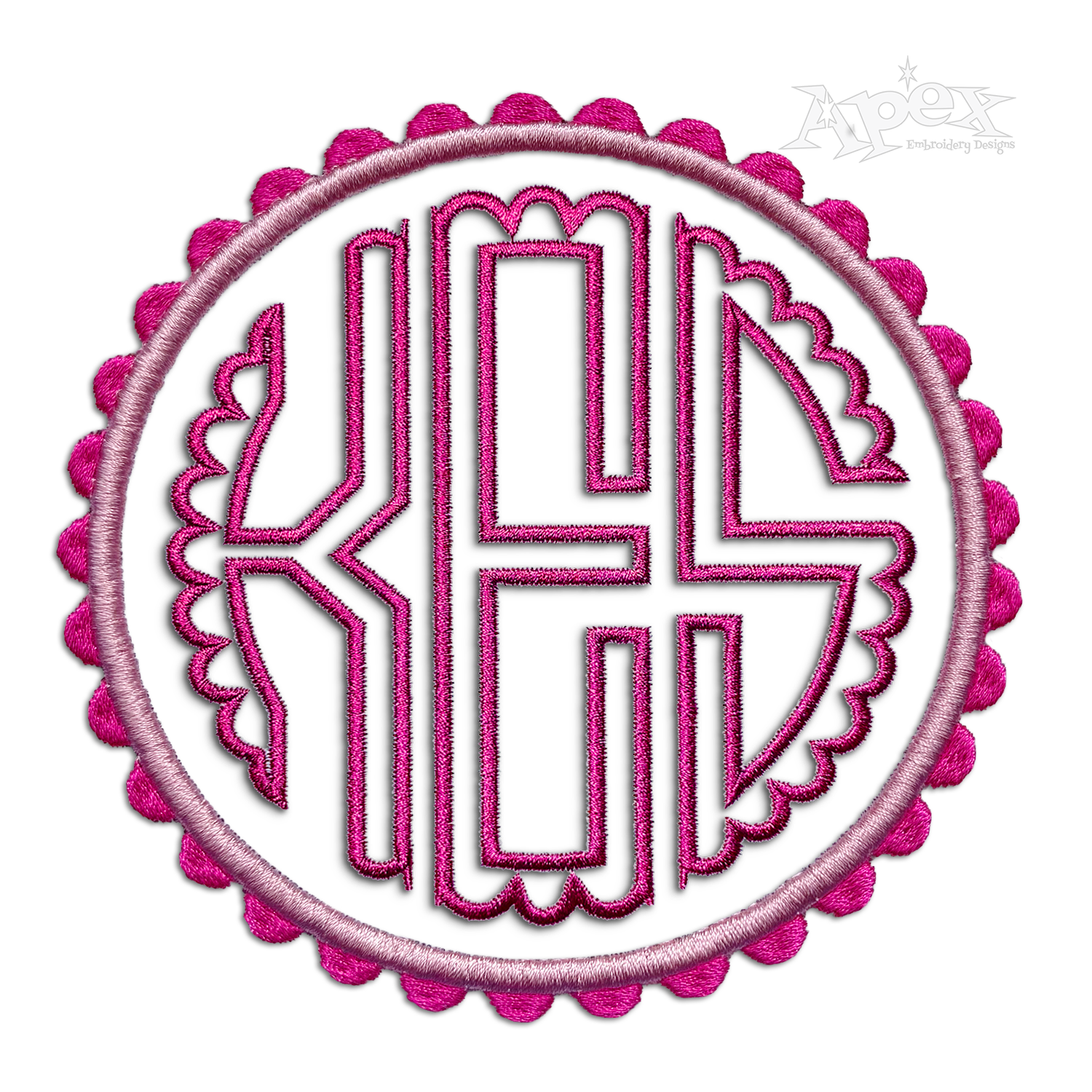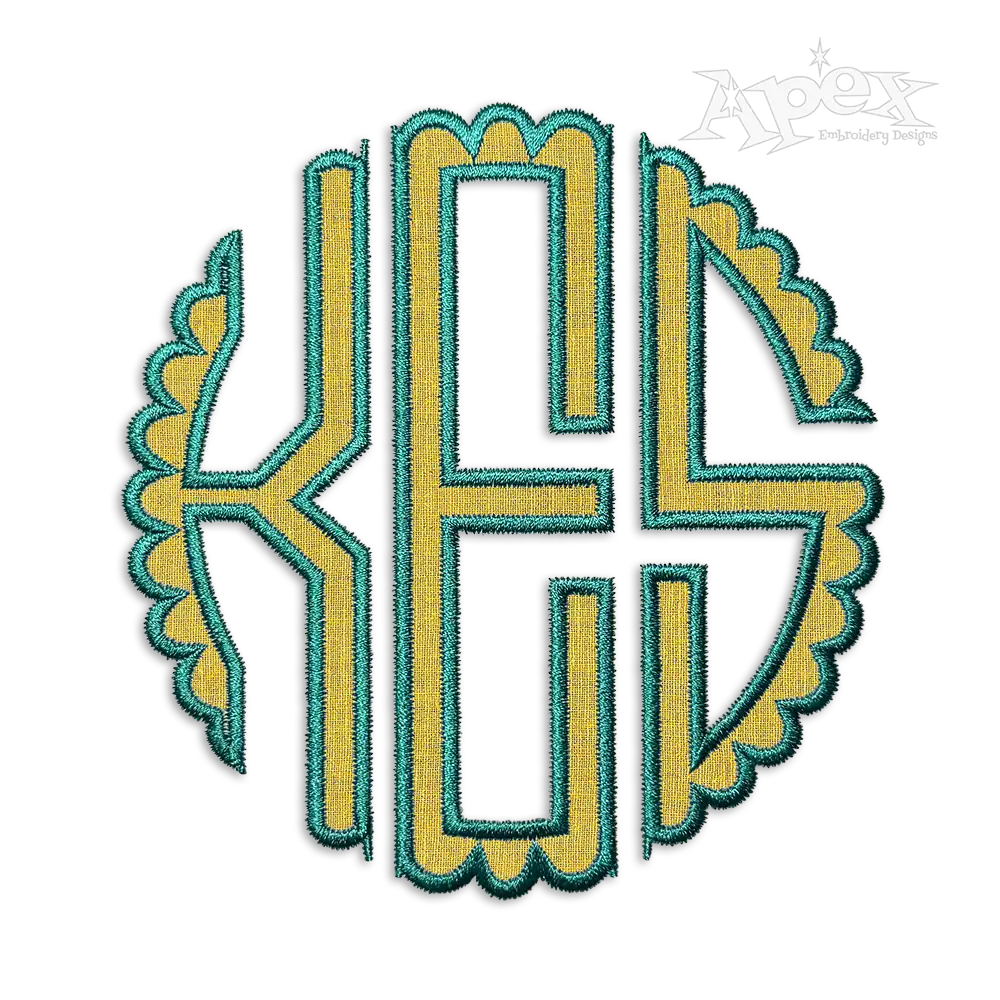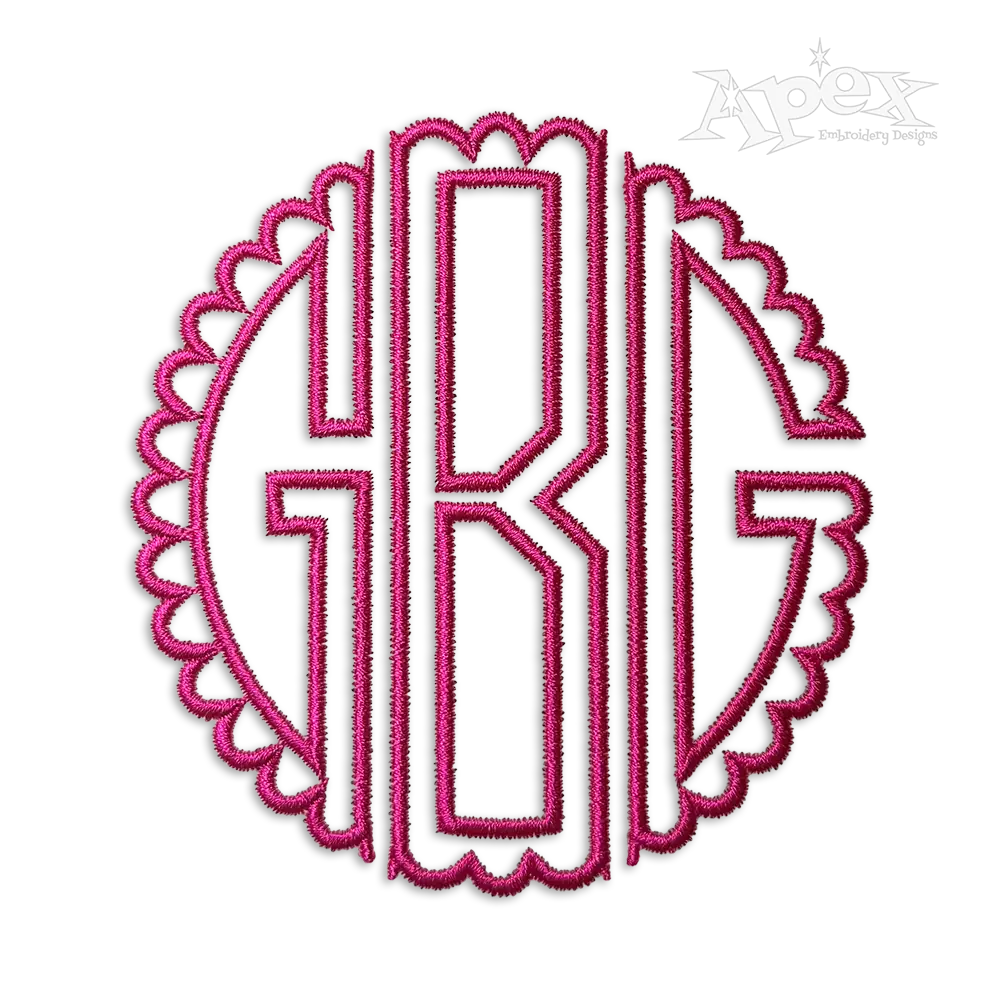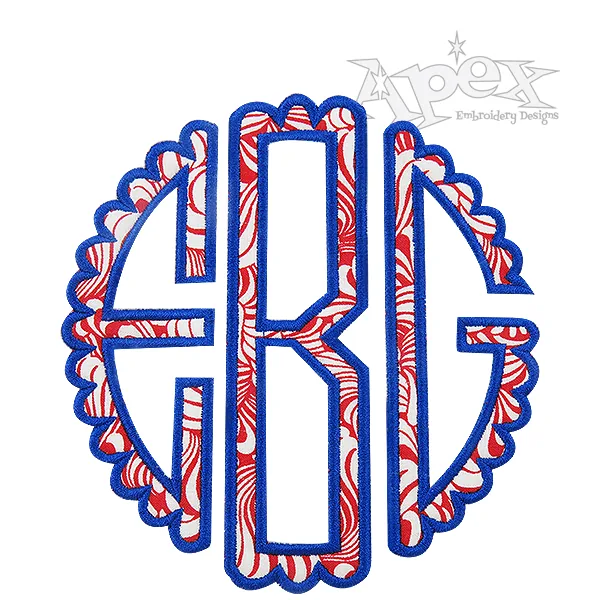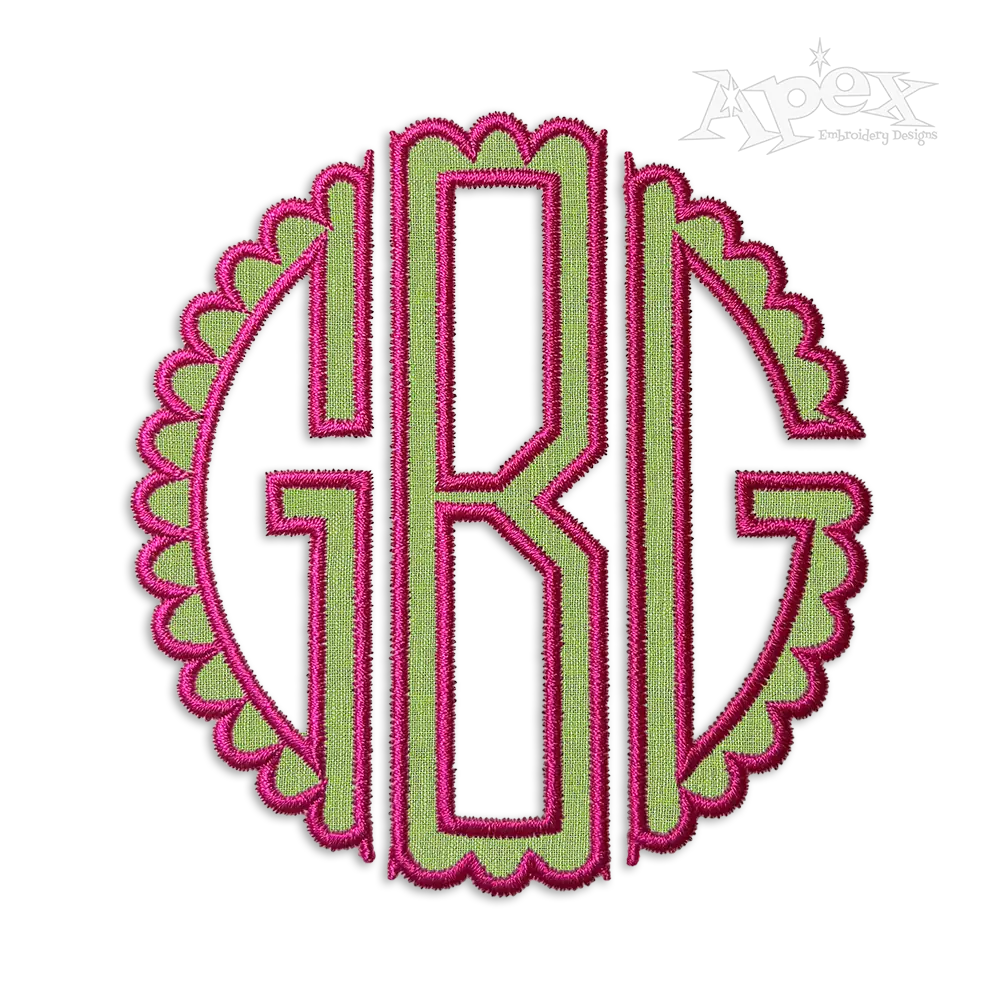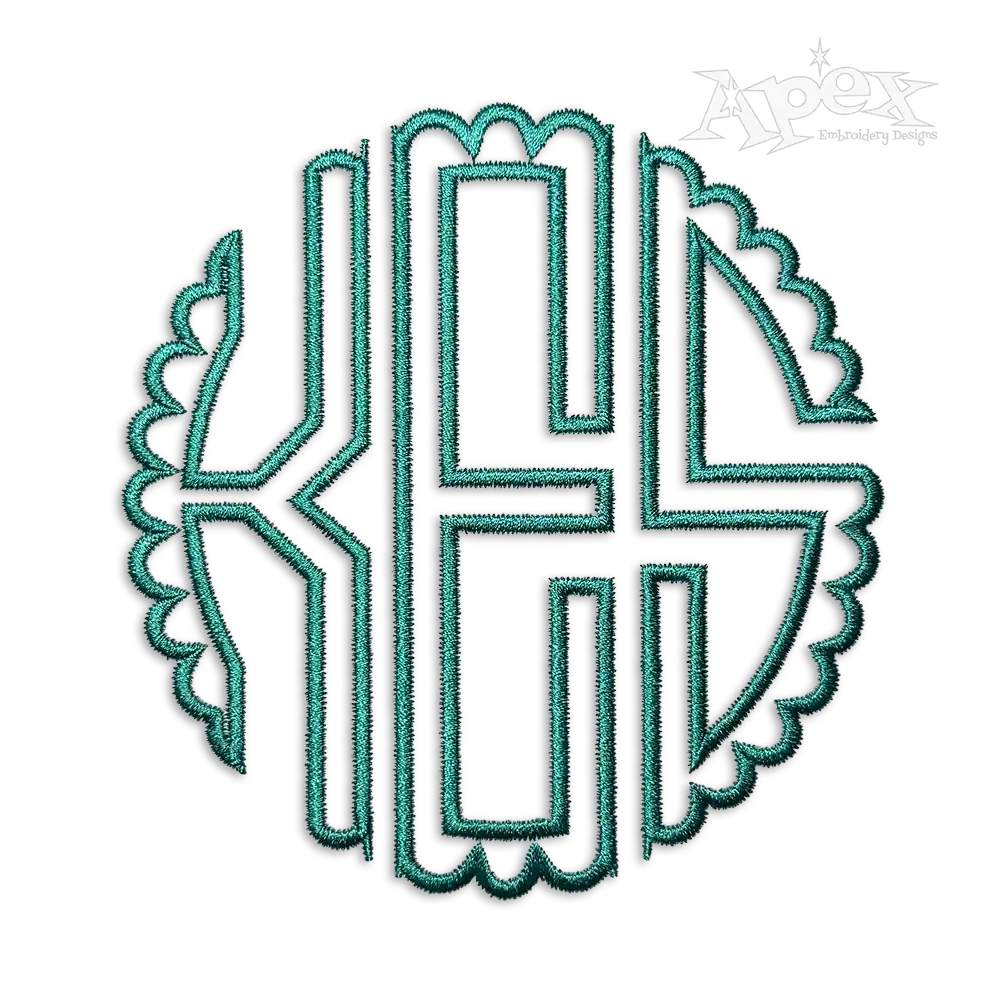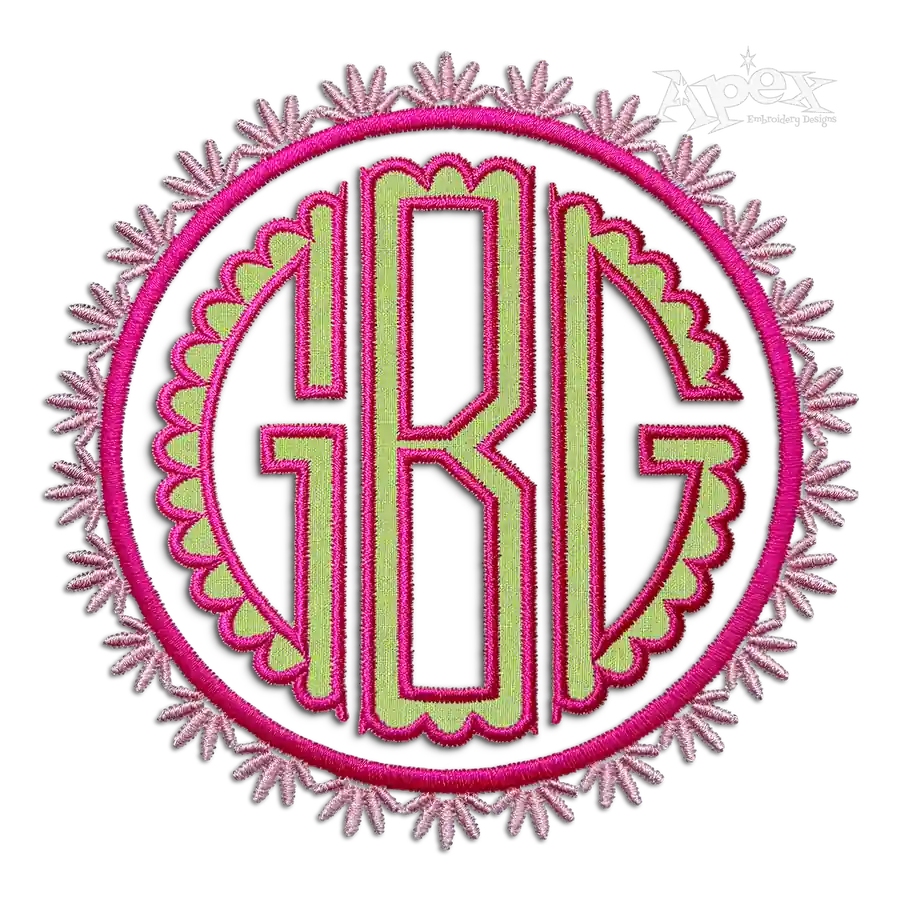
Scallop Circle Monogram Applique Embroidery Font
Capturing the sun-drenched spirit of vintage coastal retreats and timeless Southern charm, our Scallop Circle Monogram Applique Embroidery Font brings playful sophistication to heirloom embroidery. When drafting this motif on the digitizing table, our goal was to marry the time-honored balance of classic three-letter circular monogramming with the tactile richness of modern applique. Graceful scalloped contours trace each initial while an ethereal, sunburst-like floral corona radiates along the perimeter, transforming favorite fabrics into cherished bespoke keepsakes.
Project Ideas for Scallop Circle Monogram Applique
- Bespoke Resort Wear & Beach Totes: Center a vibrant gingham or seersucker applique monogram on heavy canvas weekenders for coastal elegance.
- Heirloom Bedding & Nursery Linens: Frame pastel linen accents onto soft pique nursery quilts or master bedroom throw pillows.
- Luxury Table Linens & Entertaining: Accent tailored linen placemats and cocktail napkins with crisp contrast thread for memorable personalized gifting.
- Bridal Robes & Wedding Keepsakes: Stitch subtle tone-on-tone monograms across satin dressing gowns for morning-of celebrations.
- Plush Terry Toweling: Adorn guest bath towels and resort pool wraps with bold custom monogramming that holds its shape wash after wash.
- Center Chest: Prominently display on summer sweatshirts, fleece pullovers, or oversized cardigans.
- Corner Diagonal: Angle 45 degrees above hemstitched borders on fine table linens, dinner napkins, or heirloom baby blankets.
- Center Panel Layout: Anchor decorative center panels on structured tote bags, cosmetic cases, or accent cushions.
- Lower Hem & Band: Position centered above decorative dobby borders on bath sheets and guest hand towels.
Scallop Circle Monogram Applique Craft & Letterform Details
Every stitch in this alphabet reflects precise digitizing craft. Rather than relying on rigid geometric forms, we balanced the central initial with harmoniously curved flanking letters to achieve an impeccably rounded silhouette. A crisp placement run and secure tack-down sequence anchor raw fabric edges before our signature dense satin column seals each curve, preventing fraying while providing tactile relief. The outer halo features delicate petal rays digitized with optimal stitch angles to catch the light from any vantage point, providing dimensional elegance and dramatic contrast against woven textiles.